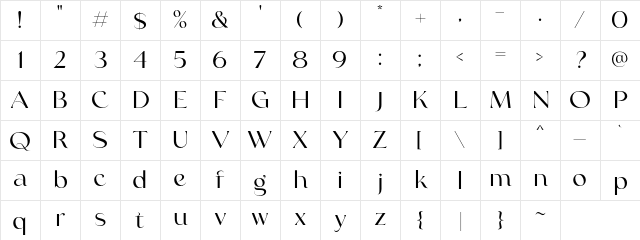
Complete Argue DEMO Regular glyph index. Displaying only characters natively supported by Argue DEMO Regular font.
Argue DEMO is a composed and adaptable typeface that performs quietly and consistently across a wide range of design contexts.